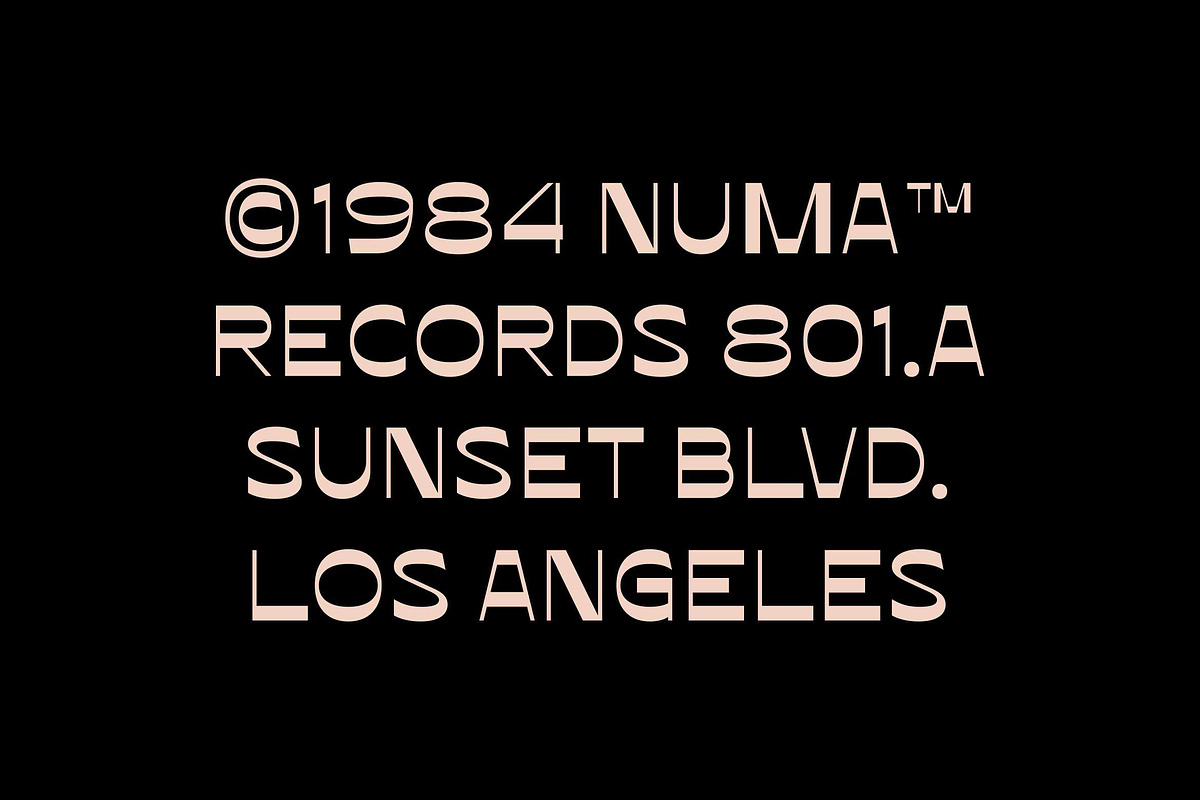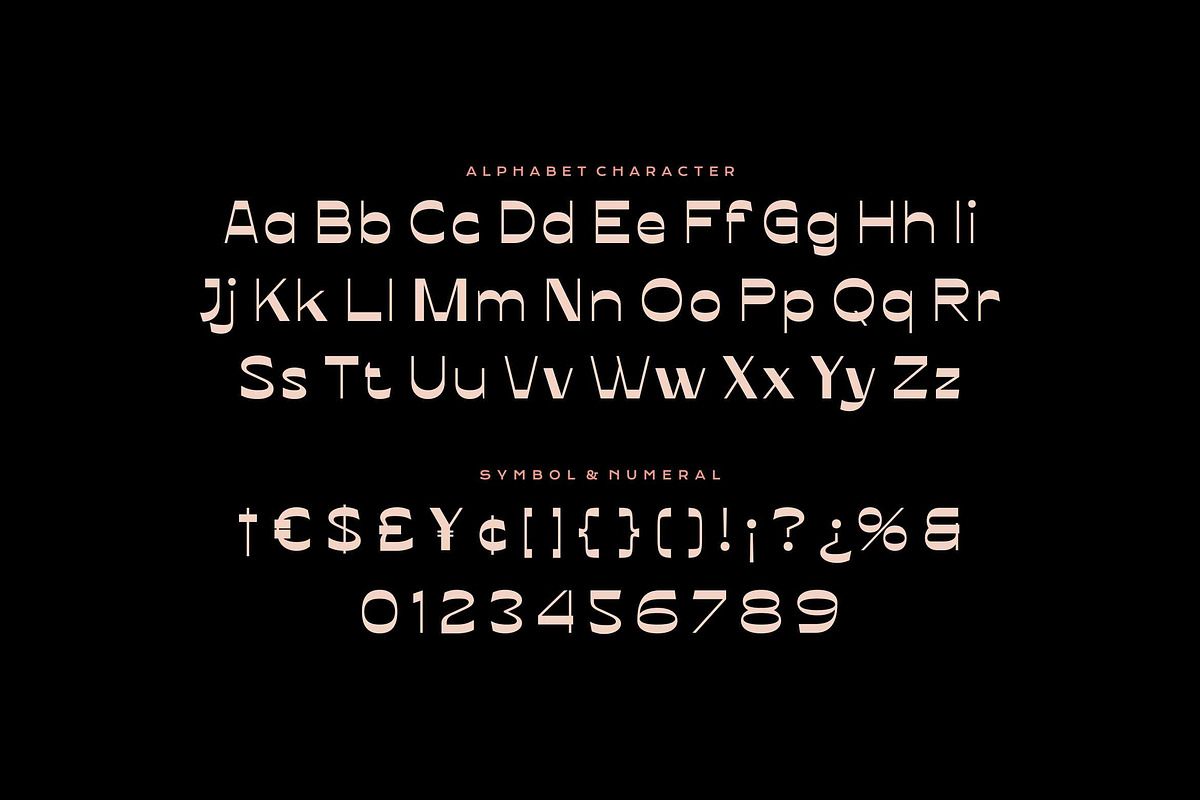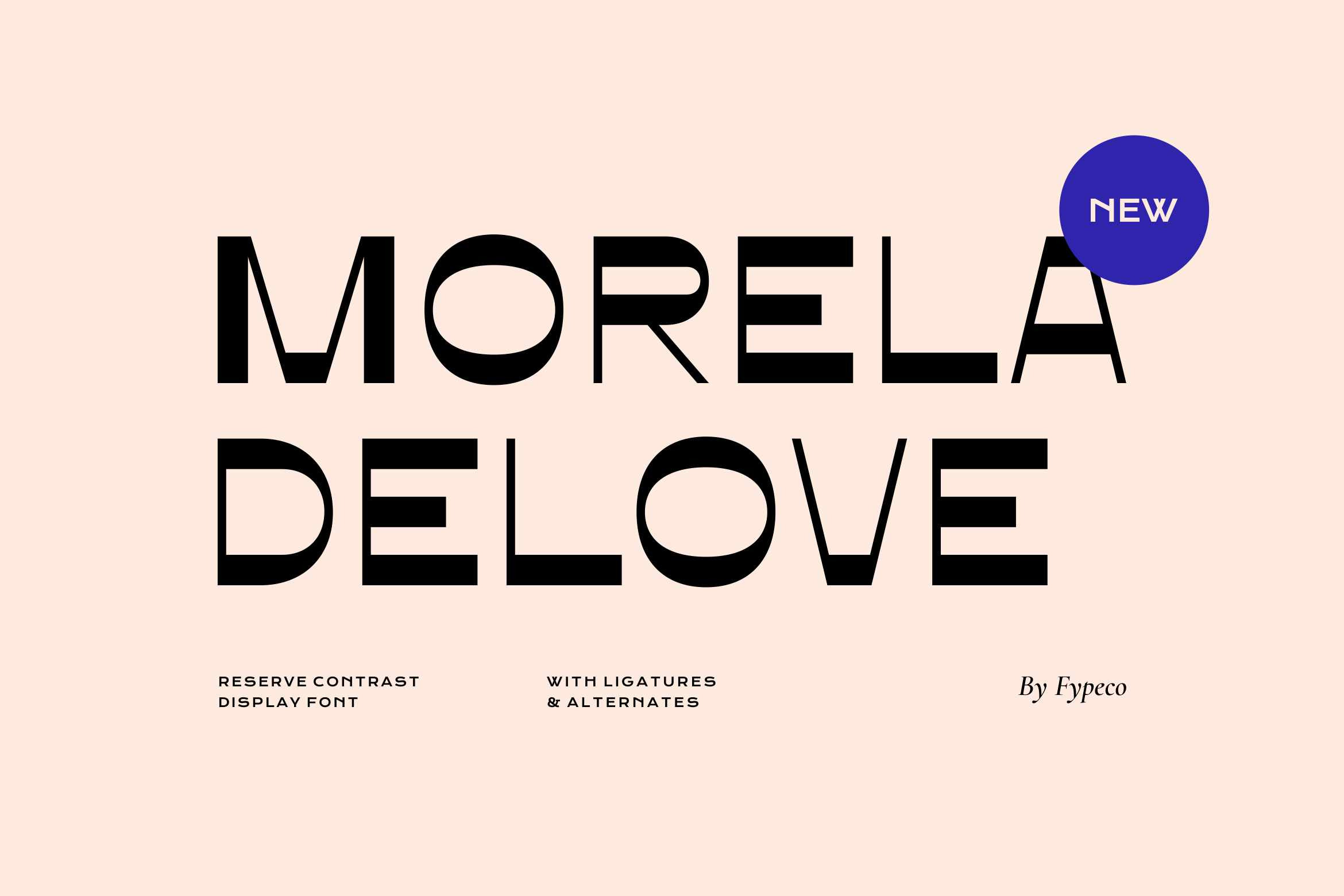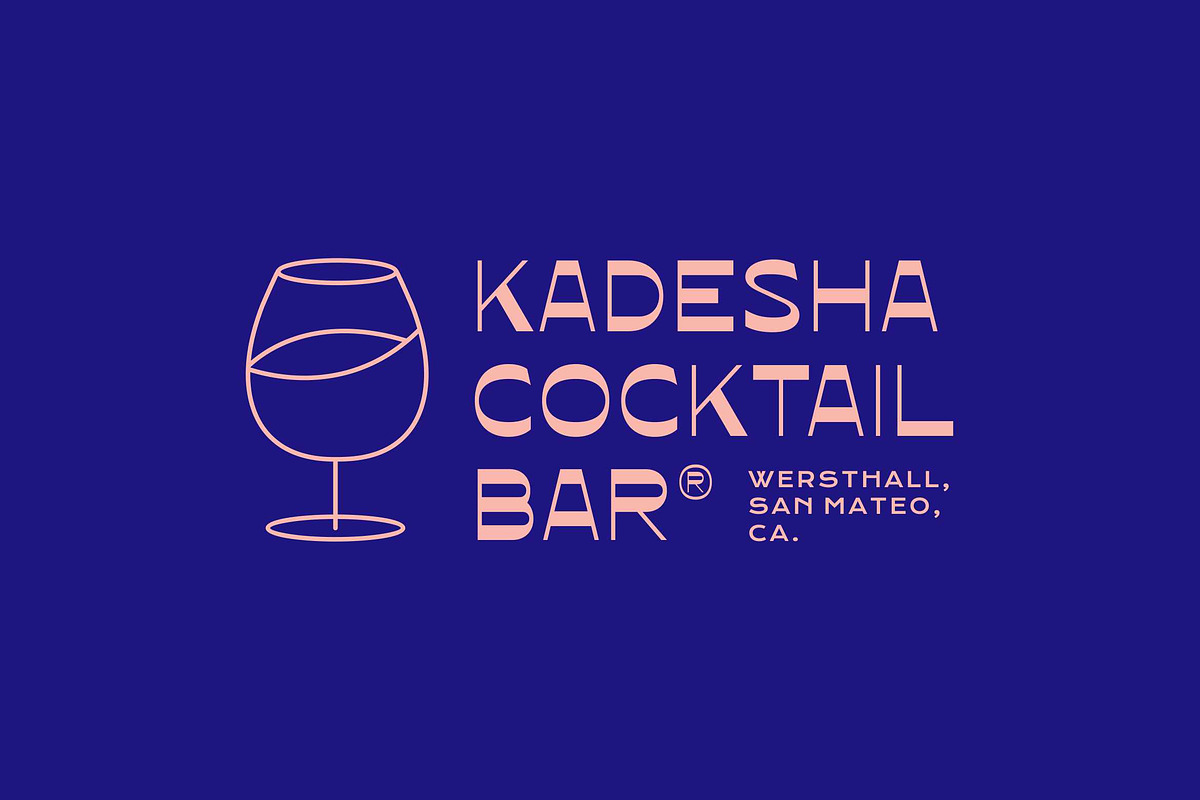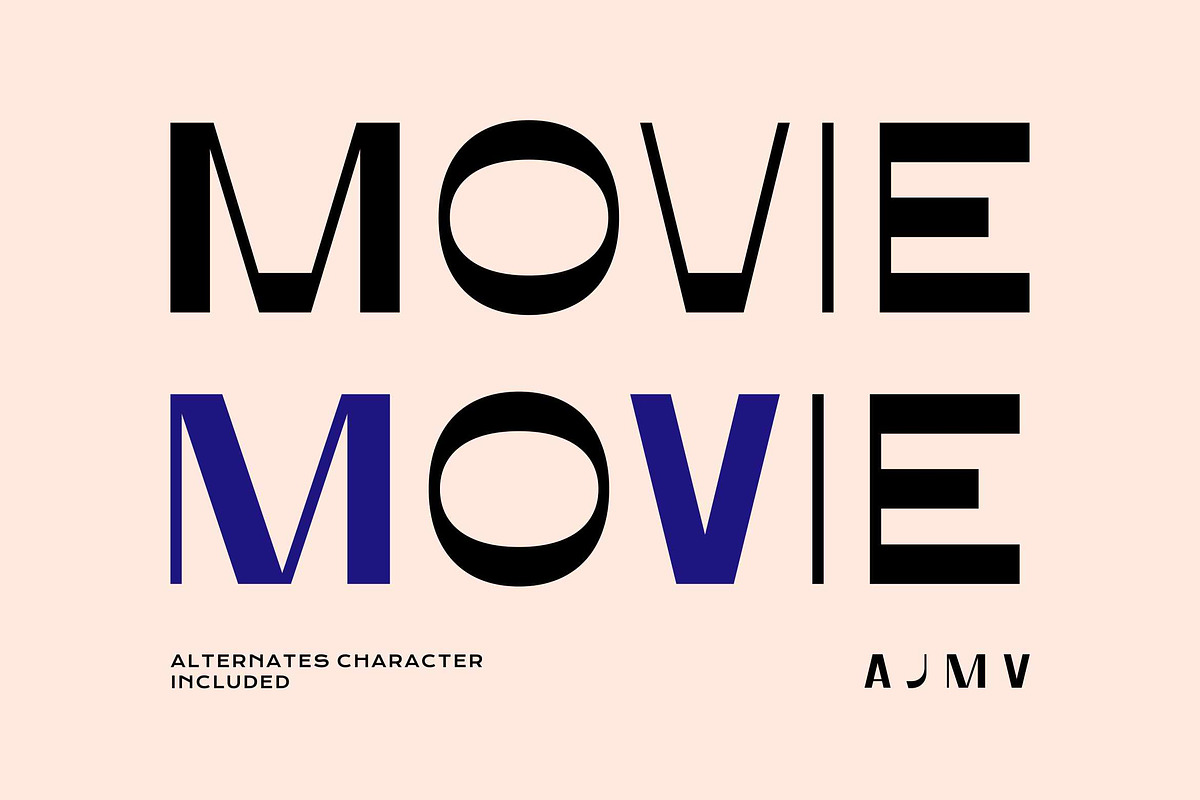
Morela Delove-Contrast Display Font
Morela Delove is reserve contrast display font with extreme stroke contrast and wide. Morela Delove is blends understated minimalism with elegance and expression. Perfect for logo design, branding, poster, and modern typography.
- Alternatives